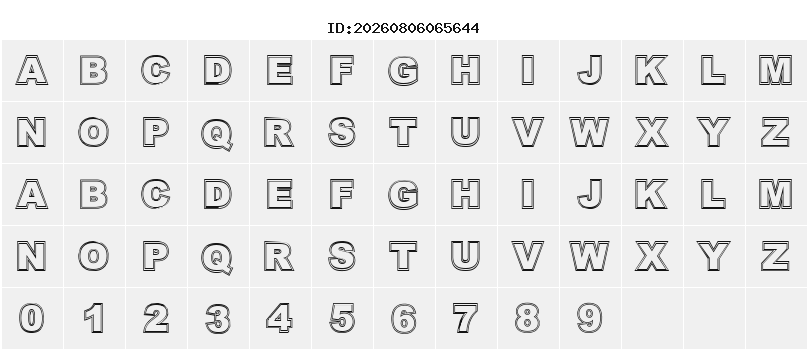
About Outline.ttf
Outline.ttf is a modern, elegant sans-serif font designed for ultimate readability and visual harmony. Perfect for branding, headlines, web design, and print materials.